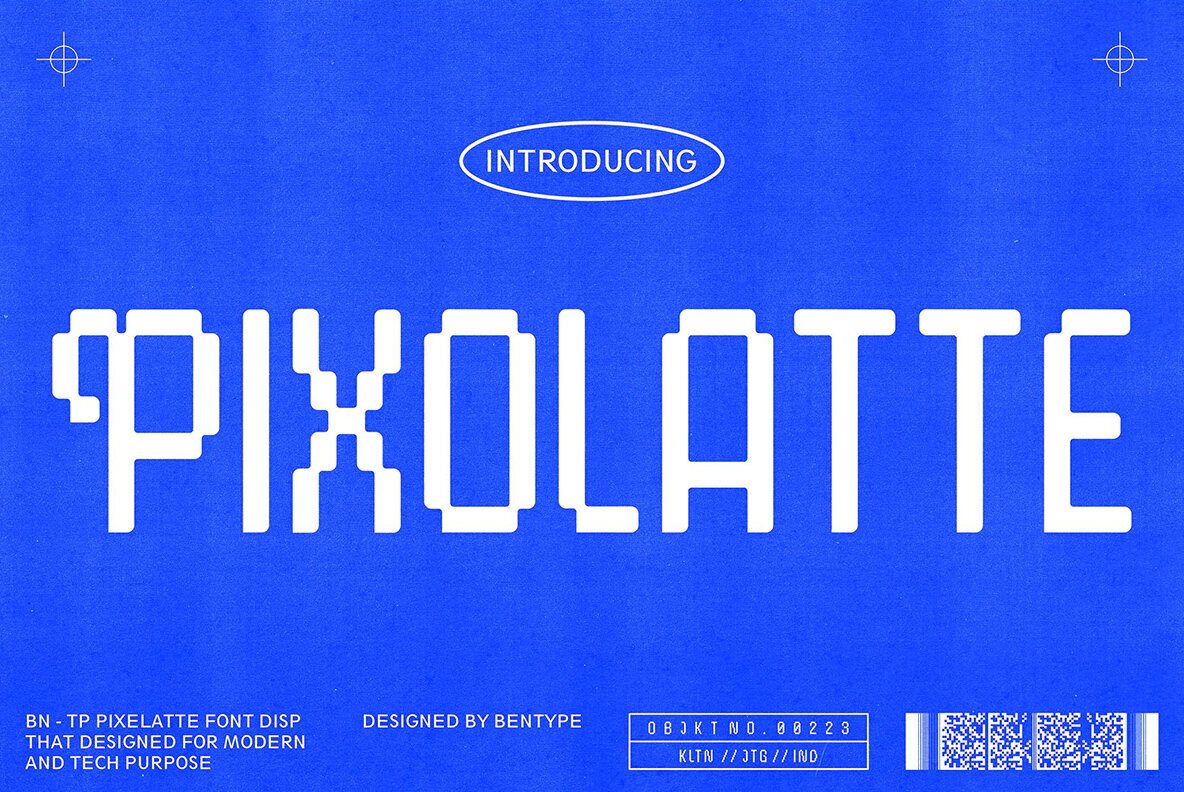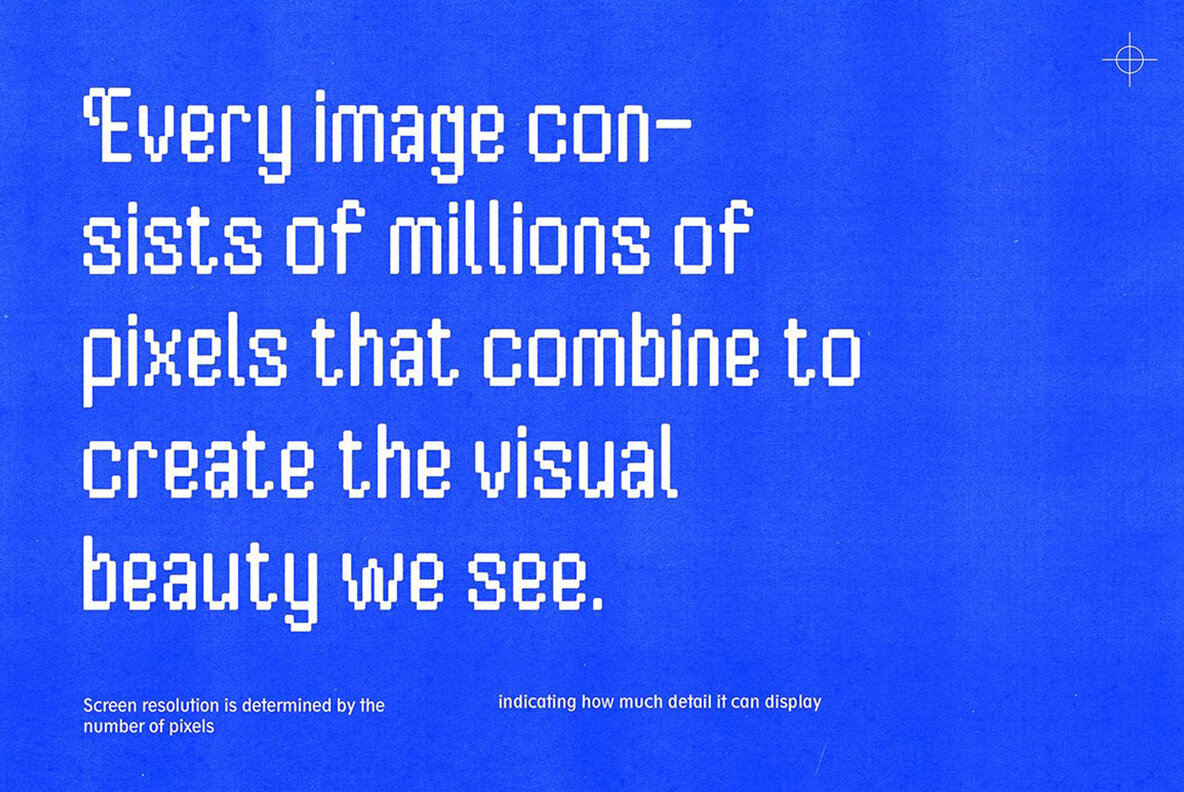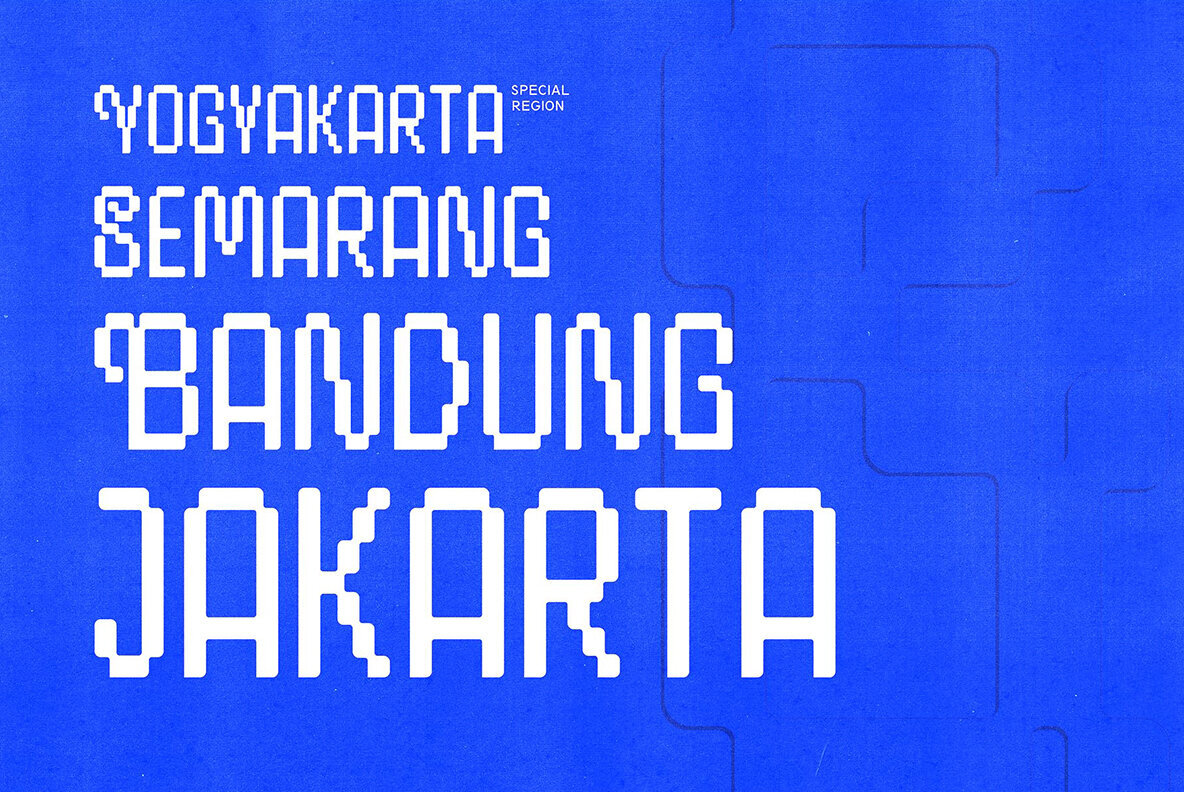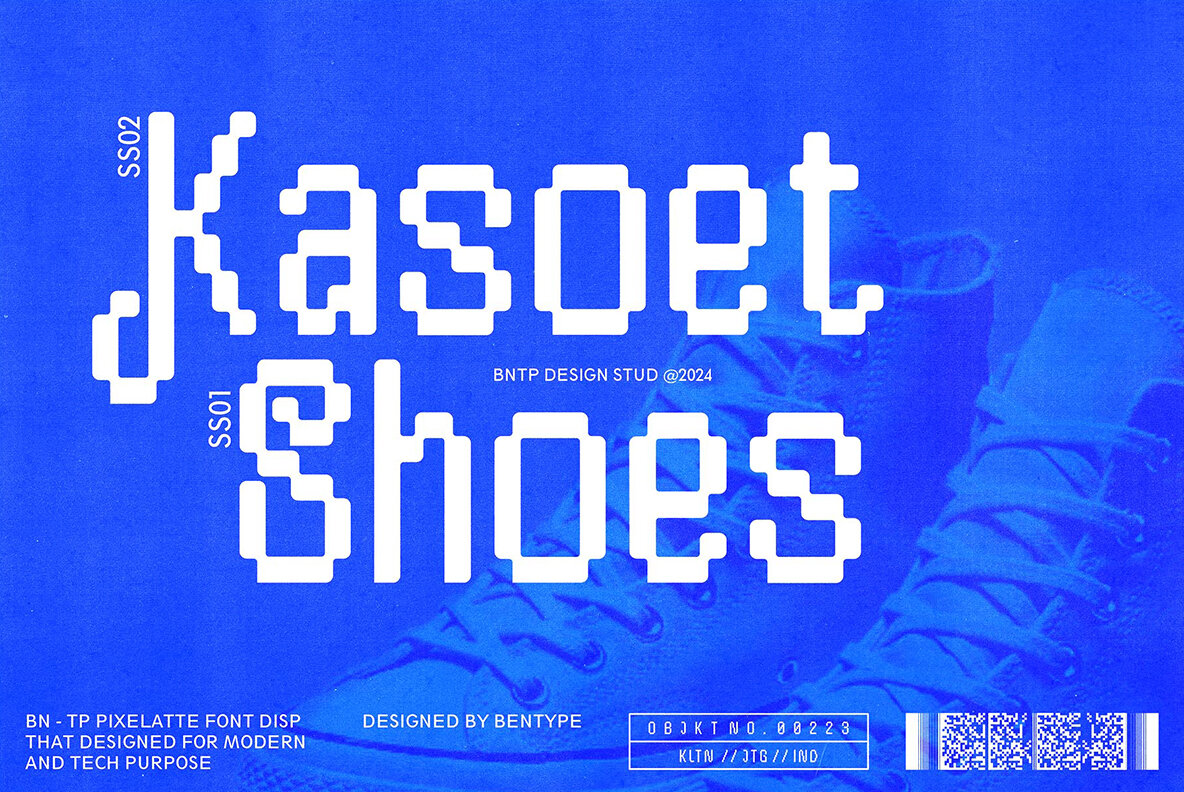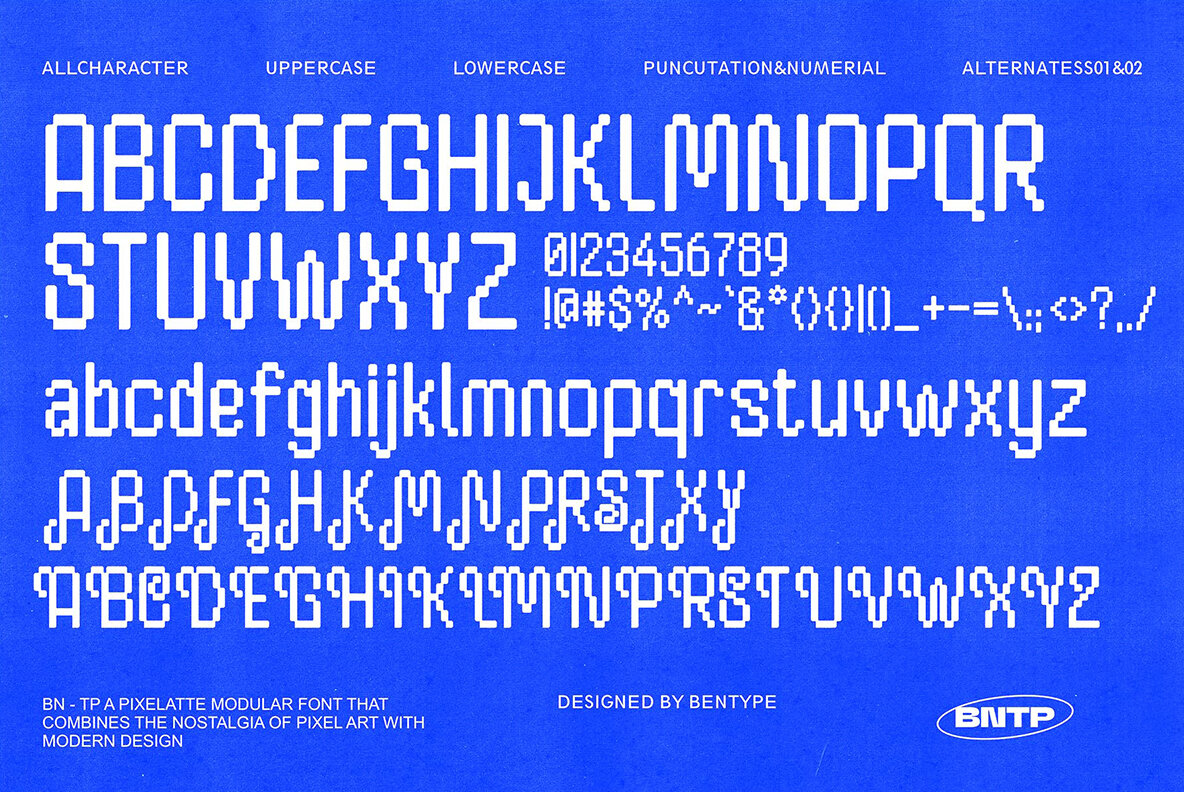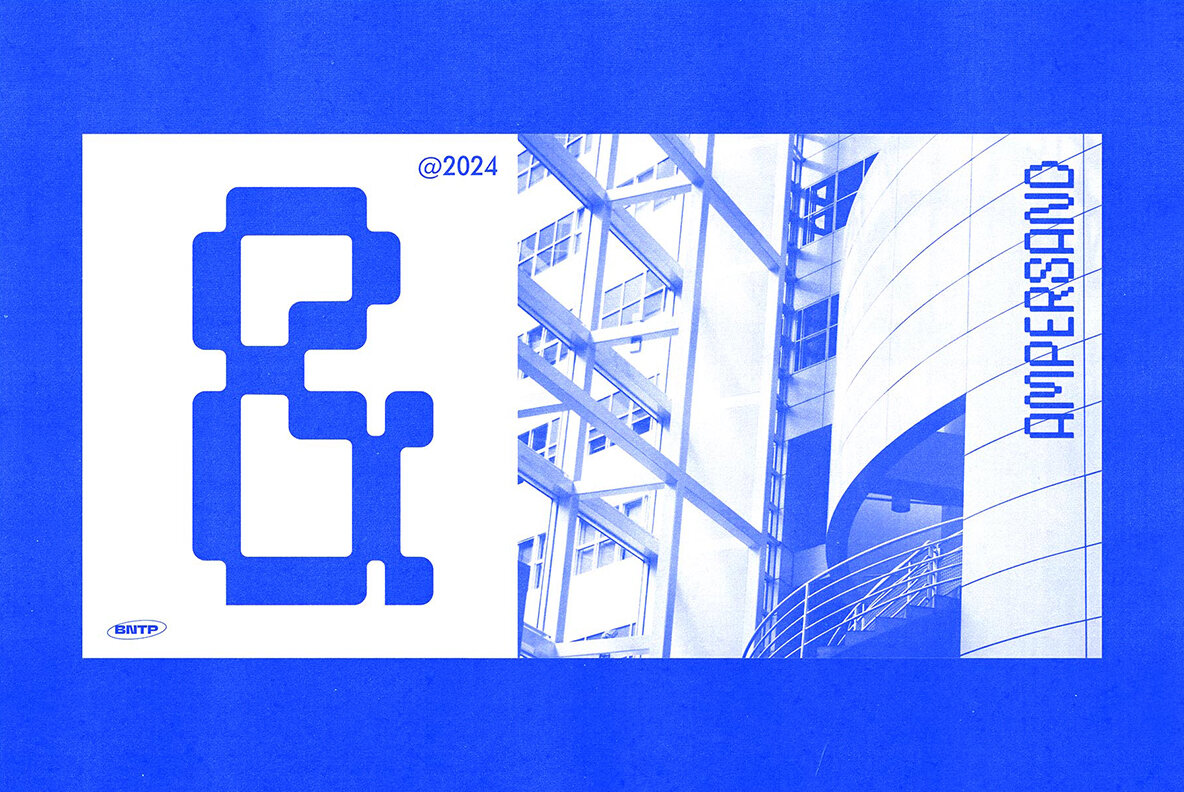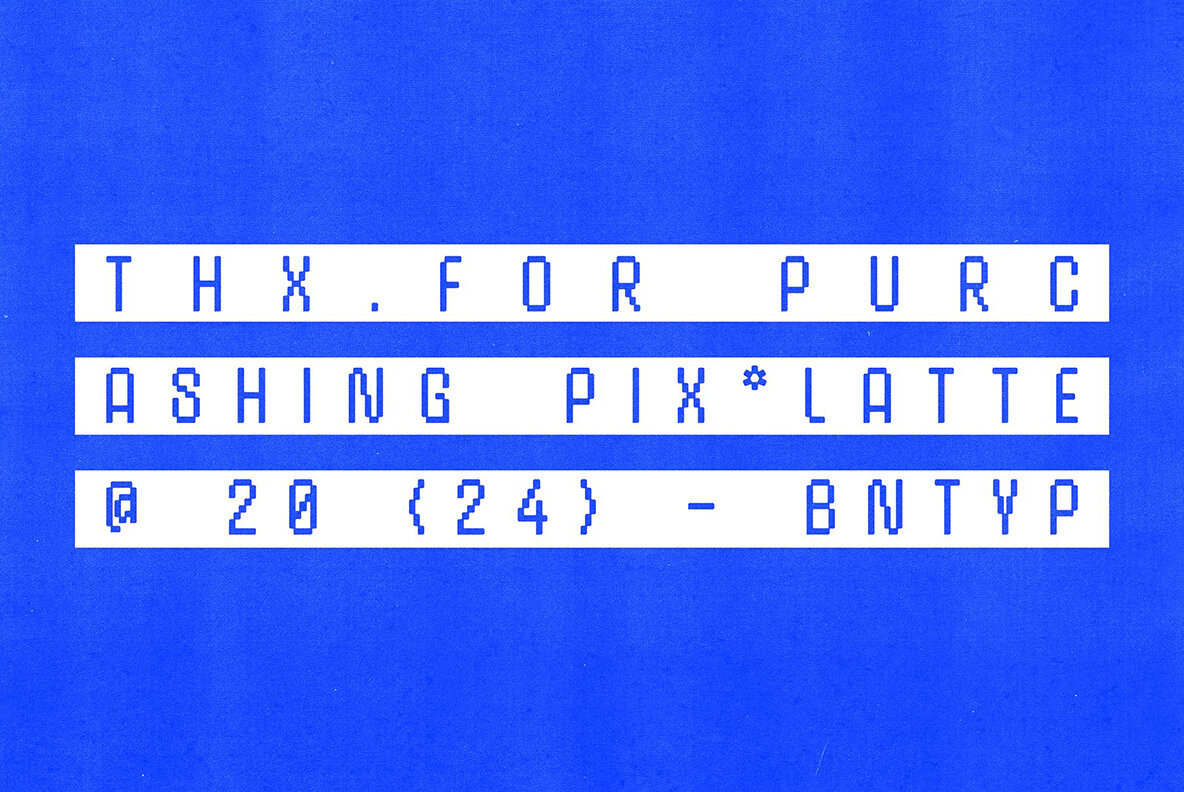
Pixolatte Font
Pixolatte
Pixolatte is a distinctive pixel font, expertly crafted for digital projects that embrace a retro aesthetic or emulate a low-resolution display. Despite its limitations in character set and resolution, this typeface captivates with its unique visual appeal and nostalgic charm, making it a favorite among designers.Pixolatte: Retro Pixel Display Typeface